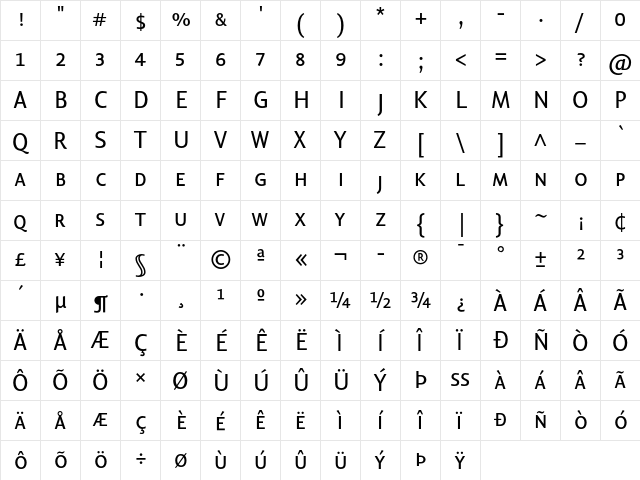
Lisboa SC Regular
Design Context for Lisboa SC Typeface
Lisboa SC offers clean, dependable letterforms without strong stylistic allegiance, making it a practical choice for designers who need flexibility.